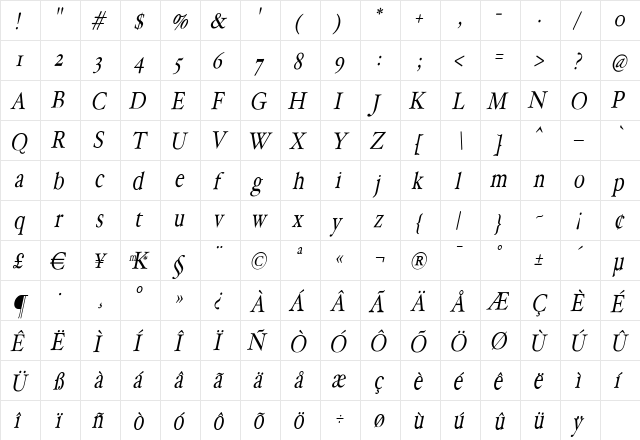
HollaMediaeval Medium Italic
Design Context for HollaMediaeval Typeface
HollaMediaeval offers clean, dependable letterforms without strong stylistic allegiance, making it a practical choice for designers who need flexibility. Its italic angle brings a sense of urgency and motion to the letterforms.
Pro Tip: Use HollaMediaeval for emphasis, pull quotes, and subheadings where its slanted energy can add rhythm to the layout.